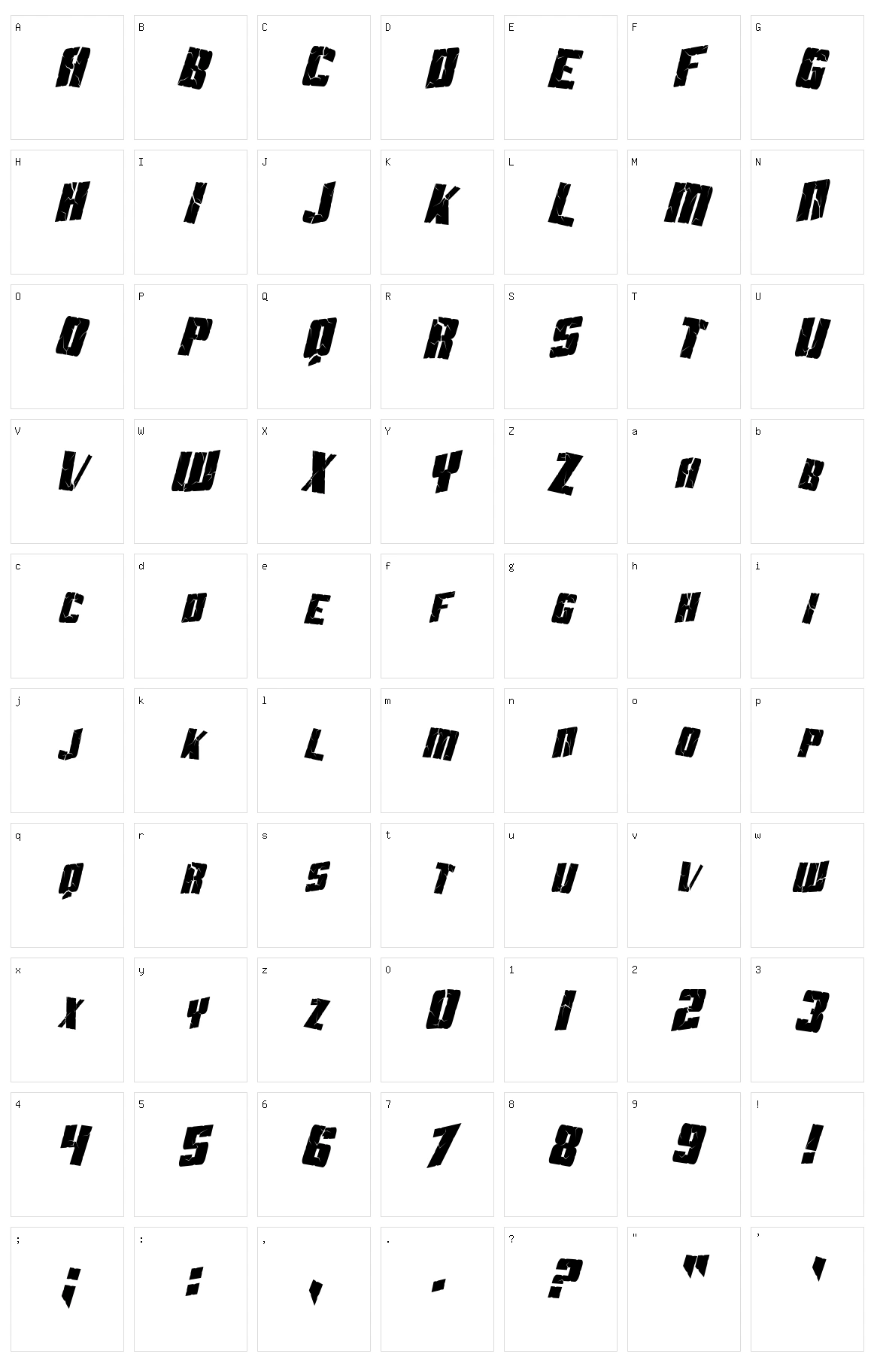
SF Aftershock Debris - Version 1.0
SF Aftershock Debris - Version 1.0 - Features
- Includes lowercase and uppercase letters, numbers, and limited
punctuation.
- Proper spacing and kerning.